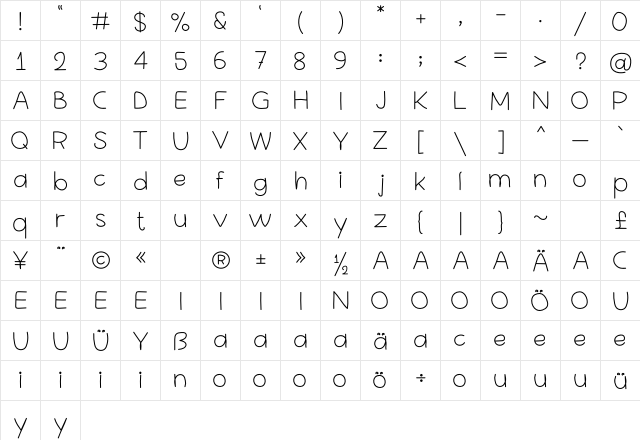
SX Write II Light Regular
| Foundry | Anastasios Nanopoulos |
| Designer | Anastasios Nanopoulos |
Design Context for SX Write II Light Typeface
SX Write II Light takes a measured approach to typography — its balanced proportions and neutral character make it a reliable workhorse for both digital and print work. The delicate stroke weight brings airiness and refinement to layouts.